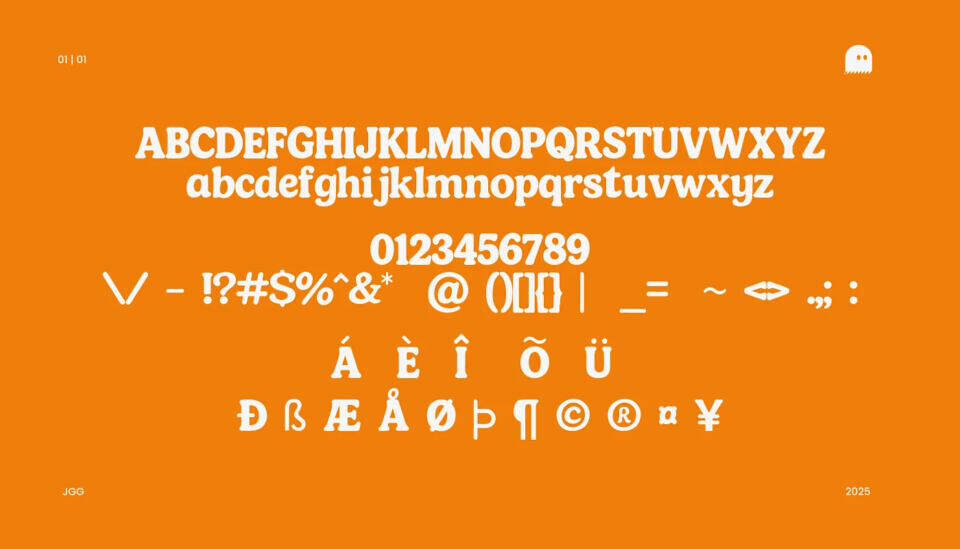
May 20, 2025SerifWoobly Font Woobly is a free bold and cheerful display font that embraces playfulness and charm. With rounded curves and soft, bouncy letterforms, it brings a sense of warmth and friendliness to any design. Font DetailsDesigned by: João G. GonçalvesWebsiteLicense: Free for commercial use Download Woobly FontFile size: 19.45 KBCreated: May 20, 2025Updated: May 20, 2025 Download Explore related fonts Brondy Font Night In Tuesday Font Laguna Tropic Serif Font Mountains of Christmas Font Southern Backroads Font Duo Billion Dollars Font Lucentia Font Jager Moon Font # Bold# Bouncy# Branding# Cartoon# Casual# Condensed# Display# Friendly# Fun# Headline# Playful# Poster# Rounded# Smooth